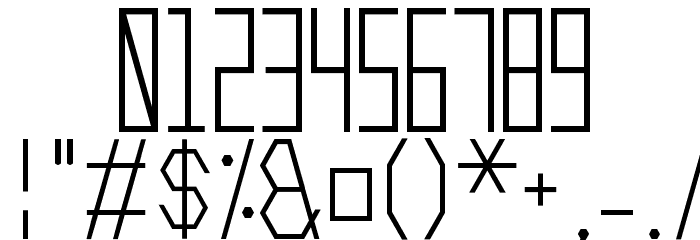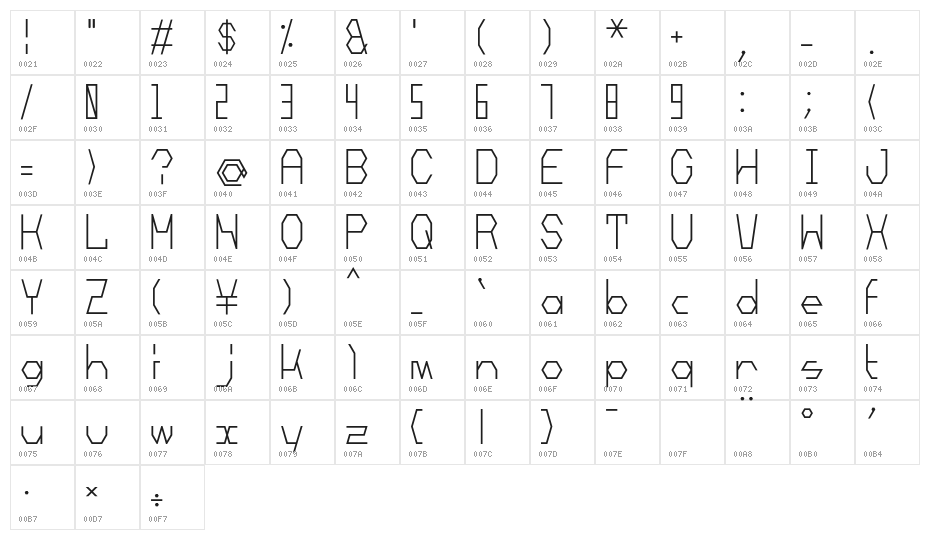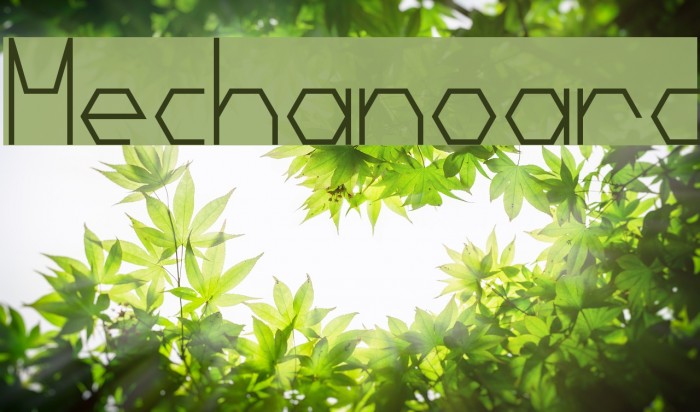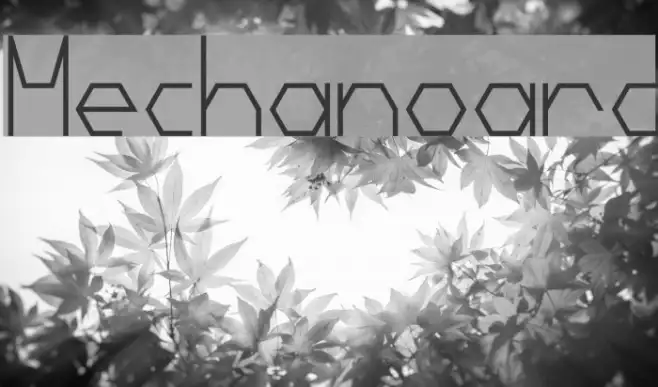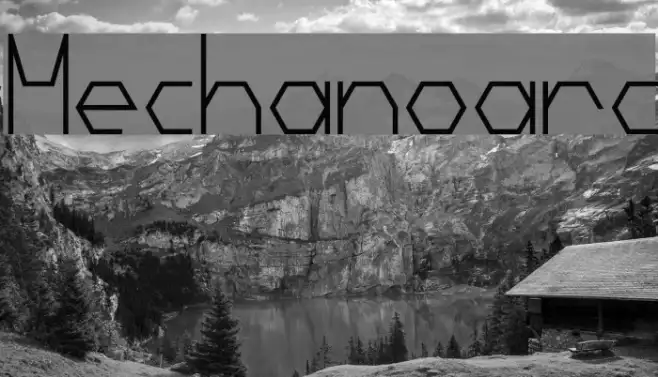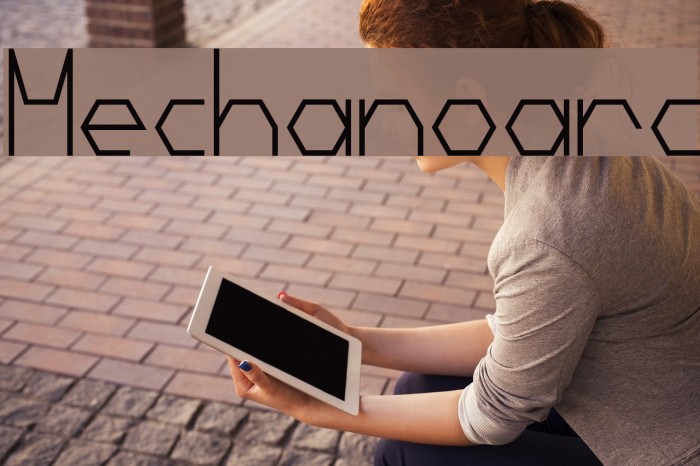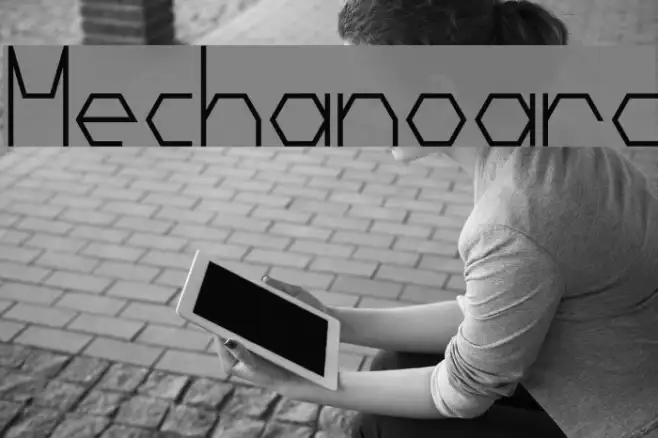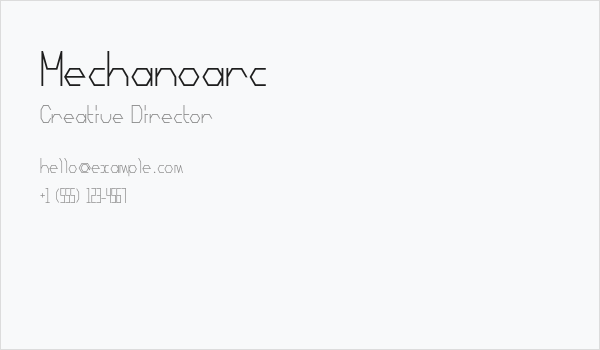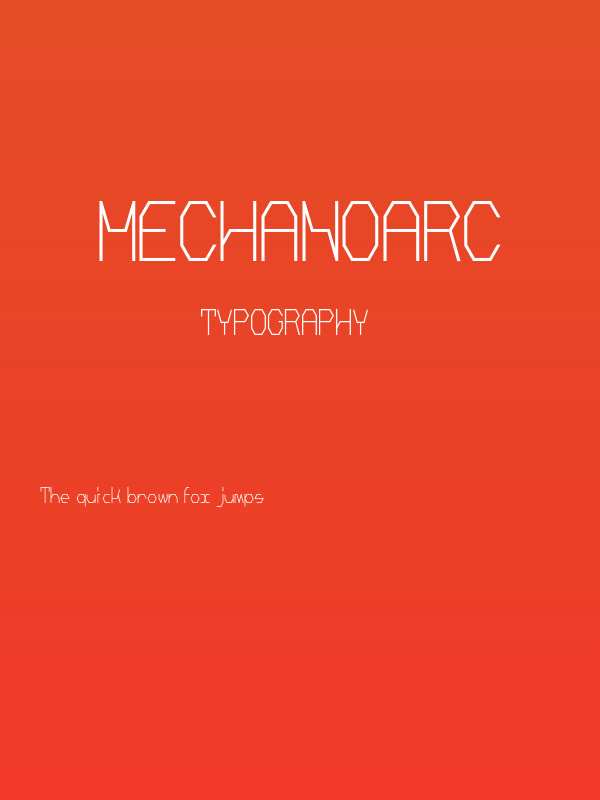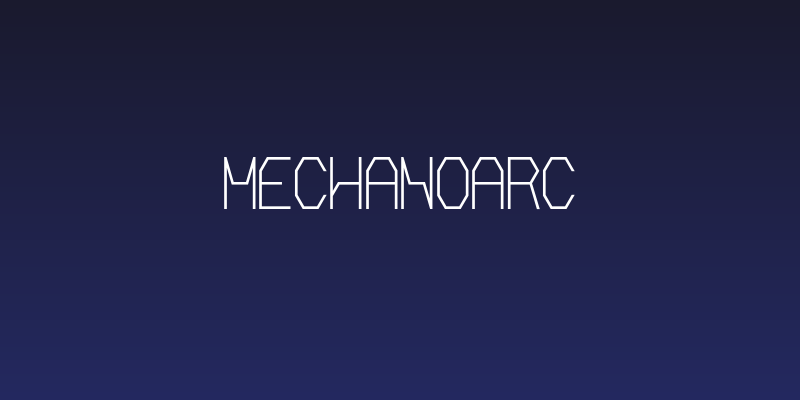
Mechanoarc Font
Mechanoarc Description
This font features a geometric and mechanical design, characterized by its angular and structured letterforms. Each character is constructed with straight lines and sharp angles, giving it a futuristic and industrial appearance. The uppercase and lowercase letters maintain a consistent style, with uniform line thickness and a distinct lack of curves. The numerals and special characters follow the same design principles, ensuring a cohesive look across all glyphs. This font's unique style makes it stand out, offering a modern and edgy aesthetic that is both bold and distinctive.
| Proposed Projects | Ideal for technology branding, sci-fi posters, video game titles, and modern architectural designs. |